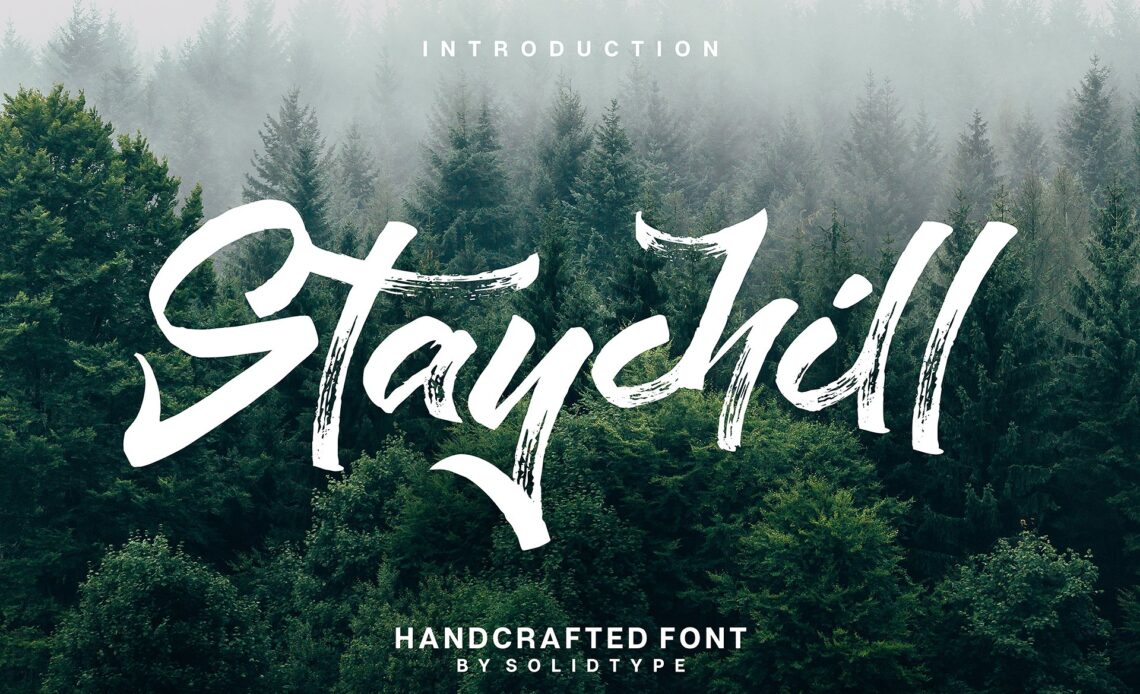
Step into a world of artful expression with Staychill Font, where every letter dances with personality and charm. This exceptional script font, meticulously crafted by Solidtype, is a testament to the beauty of imperfection. With its captivating irregularity, Staychill brings a sense of authenticity and warmth to your creative endeavors.
Unleash your imagination and let Staychill Font guide you through a realm of captivating designs. Its textured brushstrokes, reminiscent of a skilled artist's hand, add a rustic touch to your projects. Whether you're creating logos, invitations, posters, or social media graphics, Staychill Font will elevate your work with its distinctive charm.
Dive into the depths of Staychill Font's versatility and discover endless possibilities. Its playful nature lends itself effortlessly to a wide range of projects, from whimsical branding to heartfelt invitations. Experiment with various styles, from bold and eye-catching to delicate and understated, and witness how Staychill Font transforms your designs into masterpieces.
With Staychill Font, you'll find a font that speaks to your soul. Its inviting texture and irregular baseline create a sense of intimacy and connection. Engage your audience with designs that resonate with their emotions, leaving a lasting impression that sets your work apart.
Don't settle for ordinary fonts. Embrace the captivating allure of Staychill Font and unlock a world of creative possibilities. Let its unique charm enhance your designs and captivate your audience. Embrace the beauty of imperfection and watch as Staychill Font elevates your projects to new heights.